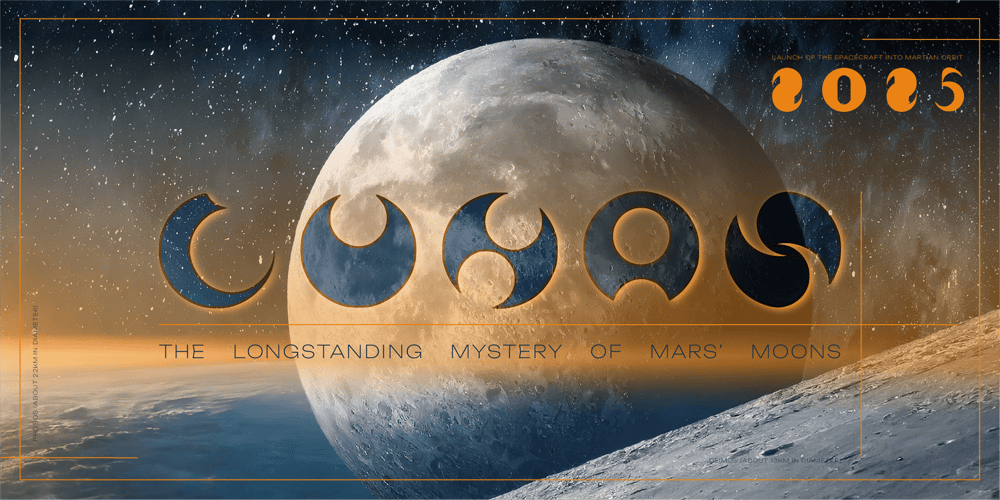
Lunas Font Family was designed by Roc Rociux and published by RocFont. Lunas contains 1 styles and family package options. Lunas is characterized by having a very strong personality, and therefore, it is unique. It reflects the amount of work that went into producing it, as it was a very artisanal process.It can convey many sensations and adapt very well to your project. It is inspired by the shape of the moon, and fits very well in works related to outer space, stars, planets… Mystery, star worship, mythology.It is a font designed for large sizes. It can be used on posters, labels, magazine covers, logos… That is, when impact and personality are needed, even from a distance. It is also a good resource for designing logos if you are able to give it a personal touch.Take a look at the numbers. I love them.